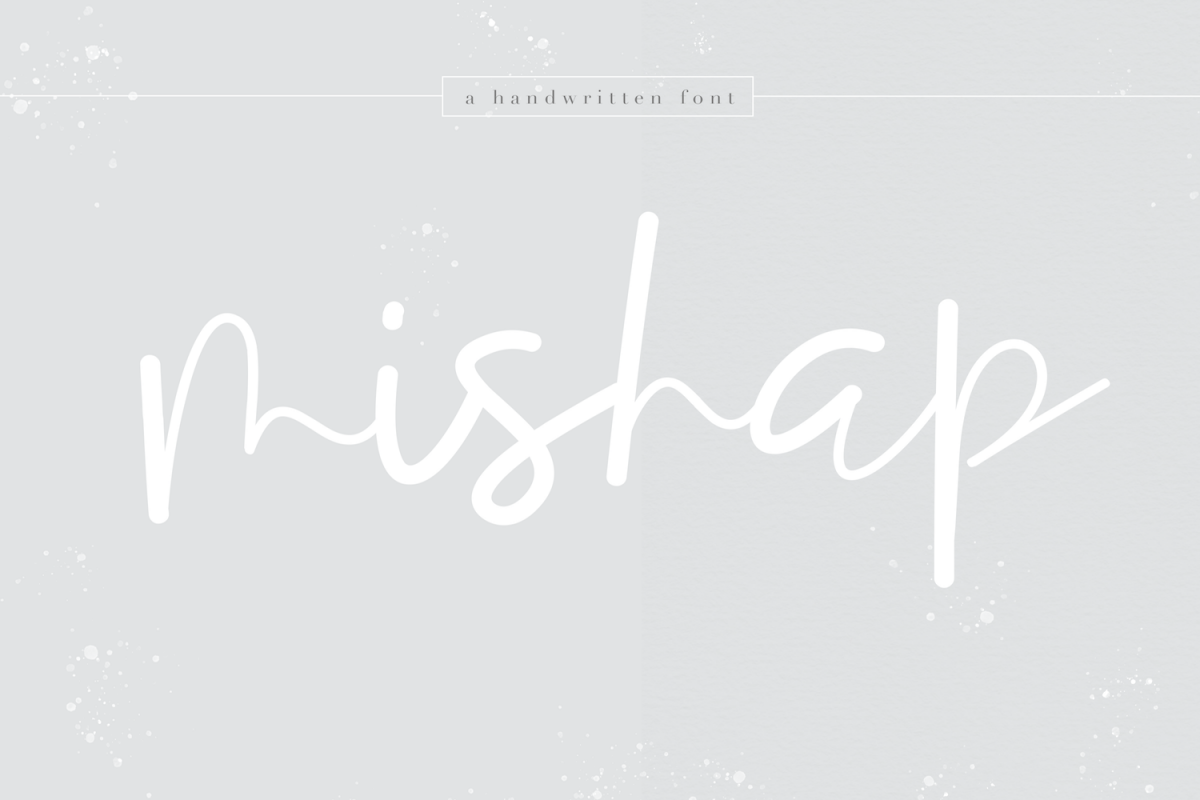
Mishap - A Chic Handwritten Font
Mishap
Mishap is a chic handwritten font.
It has a fun and unique design!
This font is perfect for quotes, headings, blogs, logos, invitations and more!
This font *does* include accent characters.